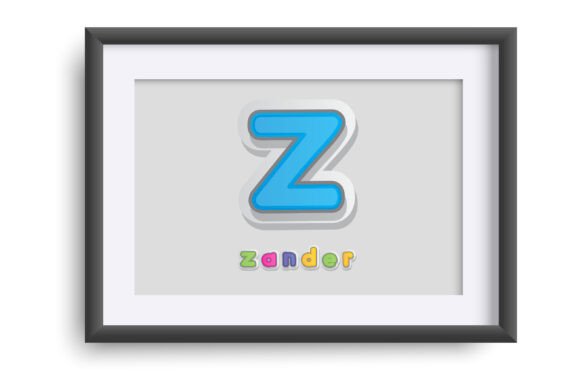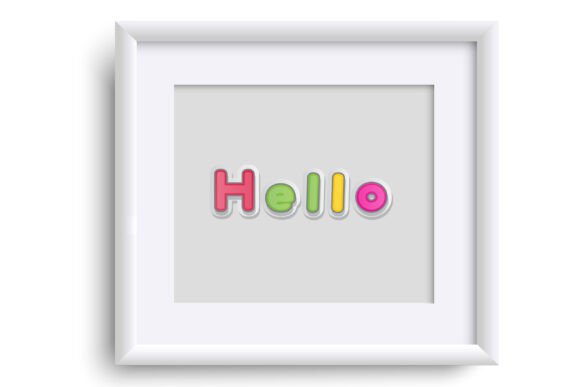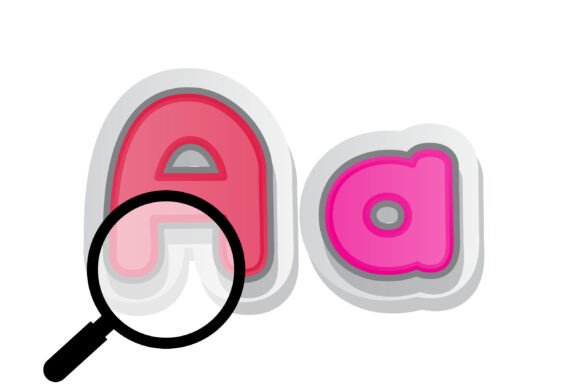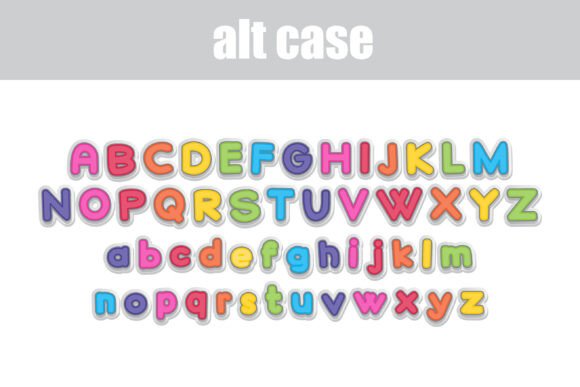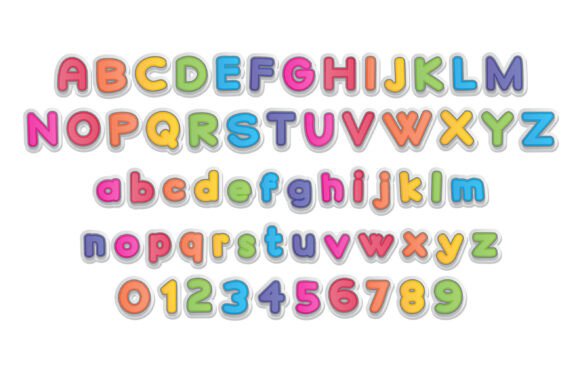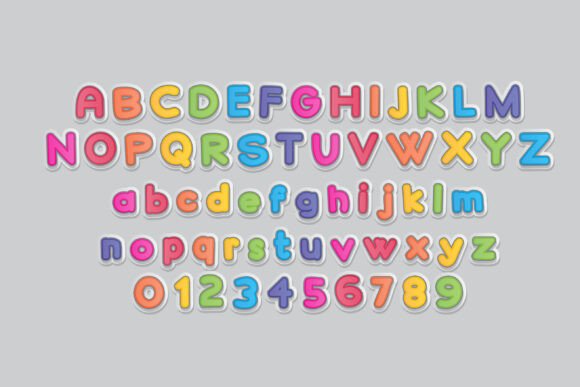
Introduction to Rainbow Puffs Font
Have you ever found yourself stuck in a creative rut, struggling to come up with the perfect design element to elevate your project? For designers, this can be a frustrating and time-consuming experience. But what if you had access to a design resource that could add a burst of personality to your work in just a few clicks?
Enter the Rainbow Puffs Font, a high-quality, full-color font that’s perfect for adding a touch of whimsy to your creative project. With its chubby, rounded lettering and vibrant rainbow color palette, this font is sure to bring a smile to your face and inspire your next design.
Key Features of Rainbow Puffs Font
- Unique and playful design ideal for creative projects
- High-quality, vector-based font with a transparent background
- Perfect for adding a touch of whimsy to children’s books, party invitations, or other creative projects
Honest Review: Rainbow Puffs Font
I recently stumbled upon the Rainbow Puffs Font, and I must say it’s a delightful addition to any creative project. The font’s high quality is immediately apparent, making it a valuable design resource for any designer.
The font’s transparent background allows for seamless integration with any design, giving the user a high degree of flexibility when it comes to creative expression.
While the font is a great resource, I did find it to be a bit limited in terms of customization options. Additionally, the font may not be suitable for formal or professional projects due to its playful nature.
Overall, I think the Rainbow Puffs Font is a great addition to any designer’s toolkit. While it may have some limitations, its unique design and high quality make it a valuable resource for any creative project.
Use the Rainbow Puffs Font on a transparent background to create a stunning visual effect. Experiment with different font sizes and colors to add depth and interest to your design.
The Rainbow Puffs Font is perfect for creative projects that require a playful and whimsical touch. Use it for social media graphics, blog posts, and other design elements that need a pop of color and personality.